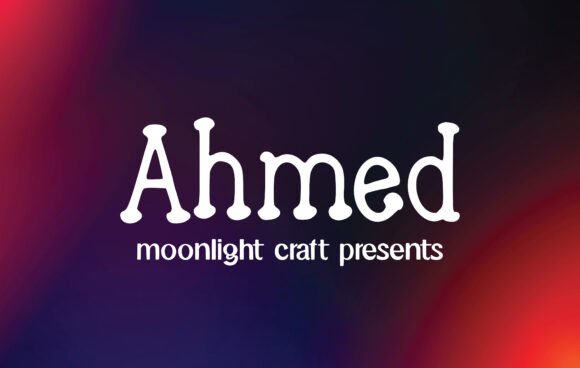
The Ahmed Font: A Creative Game-Changer for Designers and Crafters
I still remember the frustration of working on a project, pouring my heart and soul into it, only to get stuck on one thing: finding the perfect font. It was as if my design was missing a crucial piece of the puzzle. A client had requested a logo that was both elegant and playful, and I was determined to deliver. That’s when I stumbled upon the Ahmed font, a lovely and beautiful handwritten font that took my creative ideas to new heights.
A Personal Review: What I Love About Ahmed Font
The Ahmed font has been a game-changer for me, and here’s why:
- ✨ Unique and eye-catching: The Ahmed font has a distinctive, handcrafted feel that sets it apart from more generic fonts.
- ✅ Highly versatile: Whether I’m designing a logo, branding materials, or quotes, this font adapts seamlessly to different contexts.
- 💫 Easy to read: Despite its creative flair, the Ahmed font remains surprisingly legible, even at smaller sizes.
While the Ahmed font is exceptional, it’s not without its quirks:
- 🤔 Limited availability of certain characters: Some special characters or glyphs might not be readily available, which can be a minor inconvenience.
- ⚠️ Occasional inconsistencies in kerning: As with any font, there might be slight inconsistencies in kerning, which can affect the overall appearance of your design.
The Story Behind Ahmed Font
The Ahmed font was created by a talented designer who aimed to craft a unique, handmade font that would inspire creativity. With its elegant lines and playful flair, the Ahmed font has become a favorite among designers and crafters.
| Is the Ahmed font suitable for body text? | While the Ahmed font is beautiful, it’s best suited for headings, titles, or emphasis text. For body text, a more traditional font might be more readable. |